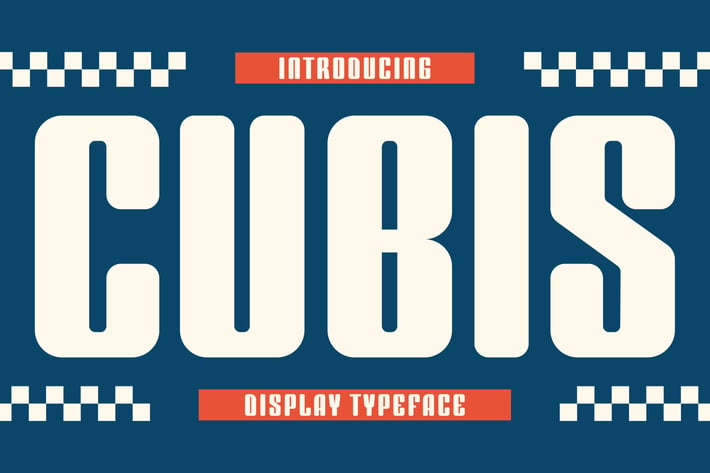
Cubis Display Fonts
Cubis Display Font
Cubis display Font is a unique, modern display font with a unique, elegant, and modern style. It is a display font perfect for branding projects, logos, social media posts, product packaging, labels, etc.